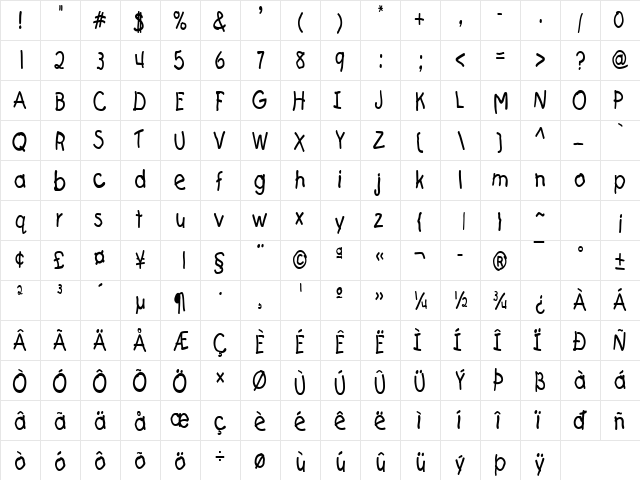
Playful Thin
Design Context for Playful Typeface
Playful trades formality for fun, with bouncy, characterful letterforms that bring warmth and energy to any project.
Font Pairing: Pairs well with a rounded or humanist sans for body copy, maintaining the friendly tone without relying on Playful to carry extended reading.
Pro Tip: Avoid using Playful for long passages of text — it works best for headlines, labels, and short calls to action.